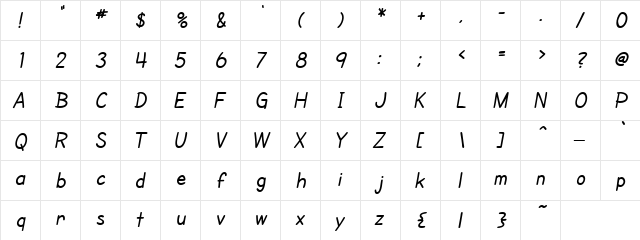
Pafoo Sana Regular
Design Context for Pafoo Sana Typeface
Pafoo Sana takes a measured approach to typography — its balanced proportions and neutral character make it a reliable workhorse for both digital and print work.